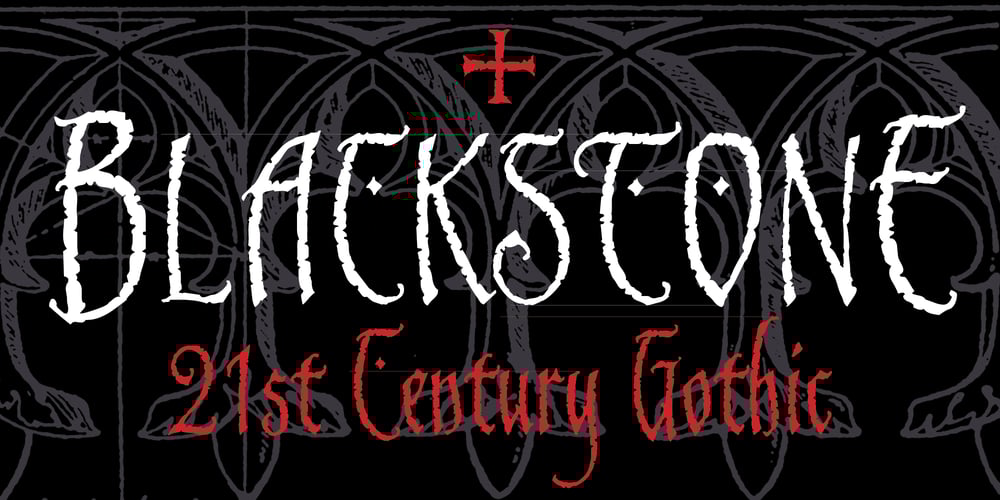
Blackstone Font Family was designed by Chris Costello and published by Chris Costello. Blackstone contains 2 styles and family package options. Dragons, pirates, magic, and all that is gothic was the inspiration for this design. Blackstone was one of ten winners in The 1988 Chartpak Typeface Design Competition and is now available in two styles with additional characters, alternates and dingbats. Several alternate caps can be found using alt keystrokes, so try using different combinations of all caps.